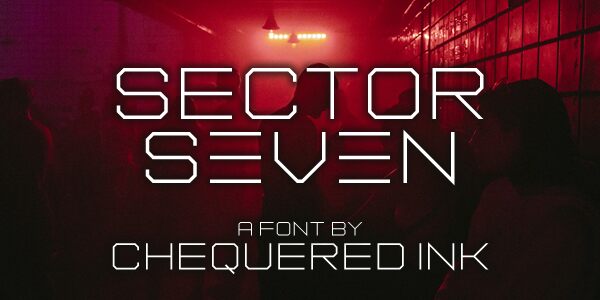
Sector Seven
Sector Seven, crafted by Chequered Ink, is a display font that exudes a futuristic techno vibe. Its sleek lines and expanded form reflect an ultramodern aesthetic that captures the essence of innovation and digital sophistication. The airy elegance of Sector Seven lends it an unobtrusive yet distinct presence, making it ideal for designs that aim to be at the forefront of contemporary style.
This font shines in contexts where a touch of cutting-edge tech is desired—perfect for branding electronic gadgets, game interfaces, or promotional materials for tech events. Sector Seven's spacious character set pairs beautifully with minimalist layouts, ensuring that messages stand out with clarity while imbuing them with an avant-garde flair.